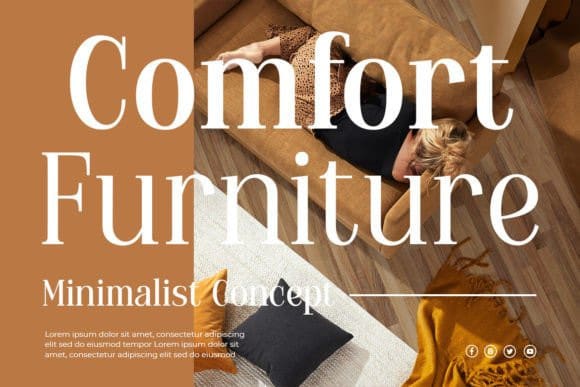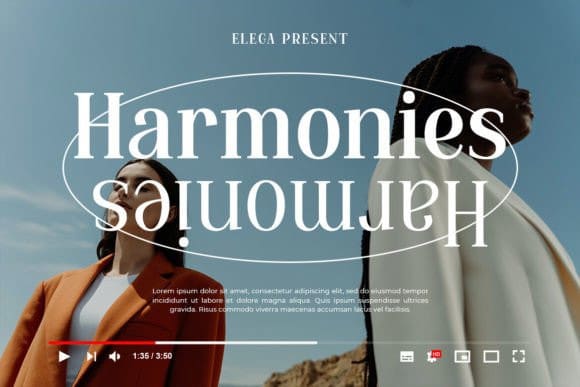
Elega Font Family
Elega Font Family – a display serif variable font that epitomizes sophistication and versatility, offering endless creative possibilities for your designs.
With its elegant serifs and fluid variable weight options, “Elega Font” exudes timeless charm and modern appeal. Whether you’re designing headlines, logos, posters, or editorial layouts, this font effortlessly adapts to your creative vision, delivering impact and elegance in every variation.
Embrace the versatility of “Elega Font” as it empowers you to explore a multitude of typographic styles with ease. From bold and expressive to subtle and refined, this variable font allows you to customize weight, width, and more, ensuring that your designs always captivate and inspire.
Step into the world of sophistication with “Elega” and elevate your designs with its dynamic and refined style.